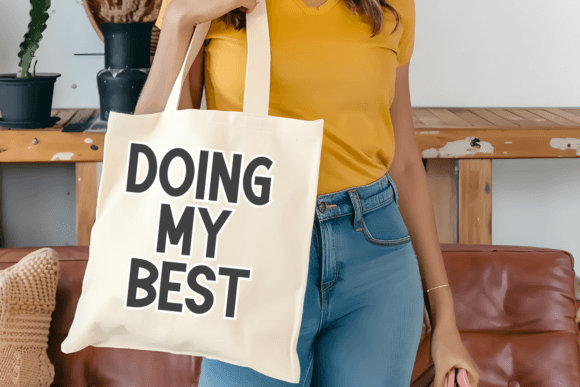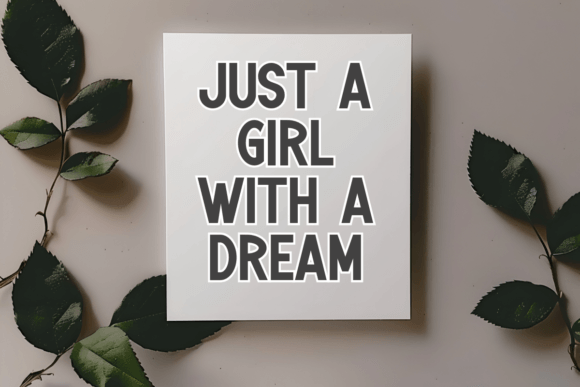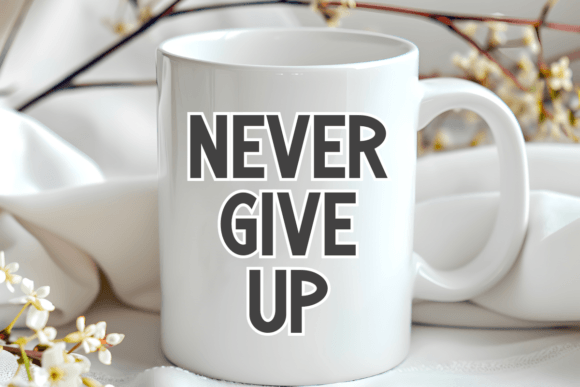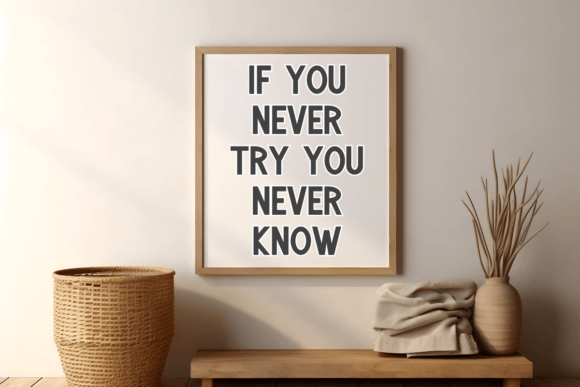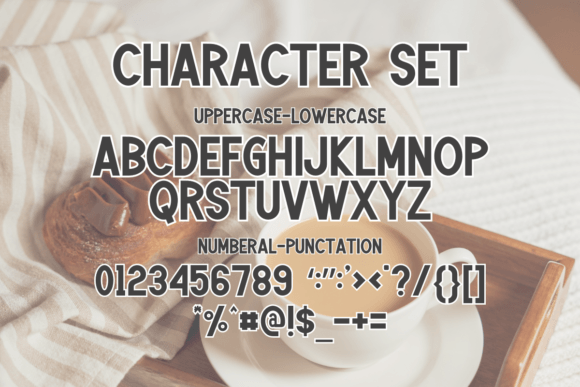
Introduction to Cupcake Delight Font
Cupcake Delight is a modern retro quirky display font.
this font is ready to be used in any project Very suitable for logotype, Stickers, Packaging design, Cricut Project, headlines, brand identity, t shirt or apparel industry, posters, magazines, books, YouTube, Instagram, websites, or any of your creative design projects.
Key Features of Cupcake Delight Font
Why Choose Cupcake Delight Font?